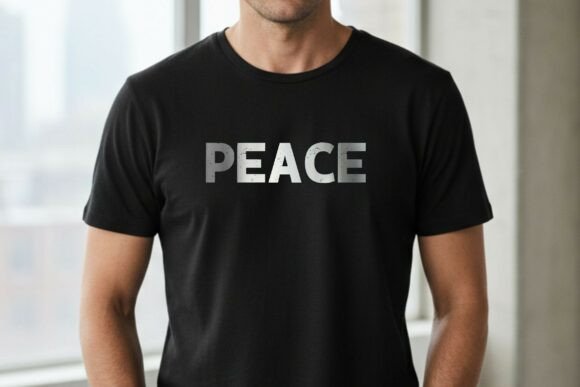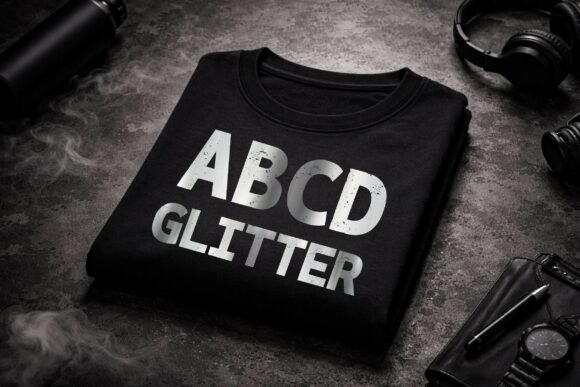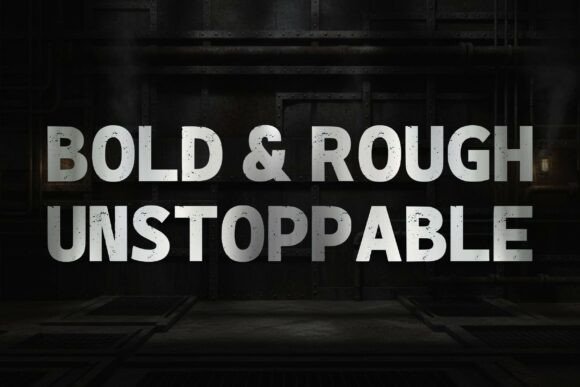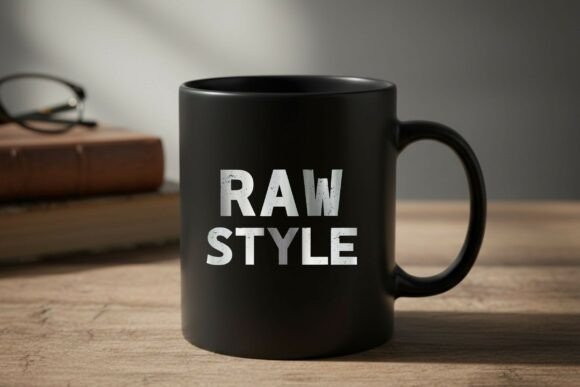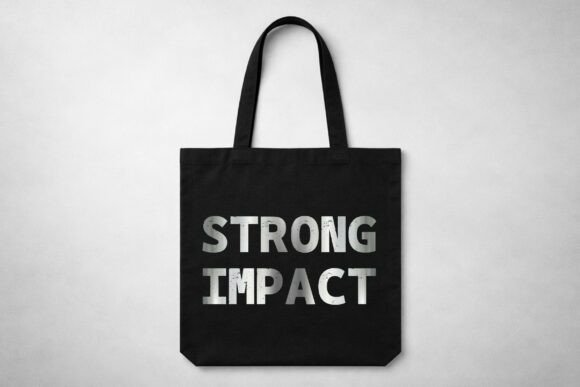
Introduction to Glitter Steel Font
Remember that moment when you stumbled upon the perfect font for your creative project? The one that instantly elevates your design from ordinary to extraordinary? For designers, this is a moment of pure joy. And, for those who have been searching for the perfect font to give their designs a bold and edgy twist, we’ve got some exciting news: introducing the Glitter Steel Font.
This stunning sans serif font boasts a unique distressed texture that adds a rugged, vintage-industrial touch to any design. With its clean geometric structure and grunge details, Glitter Steel Font is the ultimate design resource for creating eye-catching headlines, branding, posters, and apparel designs. Whether you’re working on a high-quality project or just need a reliable font for a quick design fix, Glitter Steel Font is sure to deliver a strong visual impact while maintaining excellent readability.
Key Features of Glitter Steel Font
- Unique Glitter Effect: The Glitter Steel Font features a distinctive glitter effect that adds a touch of luxury and sophistication to any creative project.
- Perfect for Creative Projects: The Glitter Steel Font is ideal for use in creative projects, including fashion design, beauty branding, and luxury packaging.
Honest Review: Glitter Steel Font
I recently stumbled upon the Glitter Steel Font, and I must say it’s been a game-changer for my creative projects. This font is perfect for designers who want to add a touch of sophistication and glamour to their designs.
- ✨ High-quality design: The Glitter Steel Font is incredibly well-designed, with smooth lines and a metallic finish that looks stunning.
- ⚠️ Limited font styles: While the Glitter Steel Font is well-designed, it’s a bit limited in terms of font styles, which might not be ideal for designers who need a wide range of options.
- ⚠️ Not suitable for small text: The font is a bit too bold and eye-catching, which can make it difficult to read in small text sizes.
Overall, I’m really impressed with the Glitter Steel Font. While it has some limitations, its high-quality design and free download make it a great resource for designers. I’d definitely recommend it for creative projects where you want to add a touch of glamour and sophistication.
Glitter Steel Font